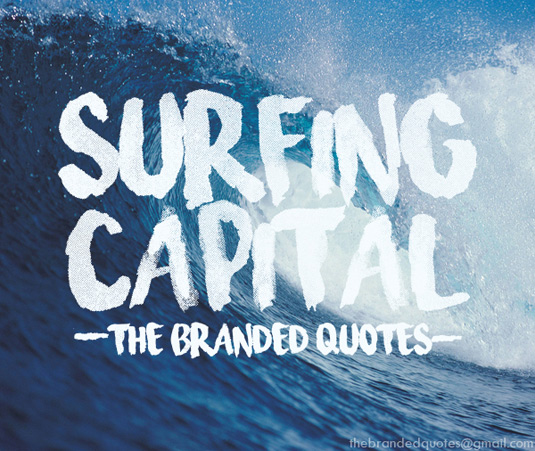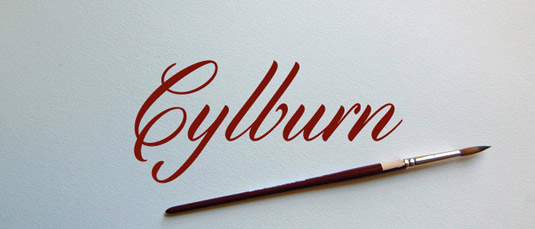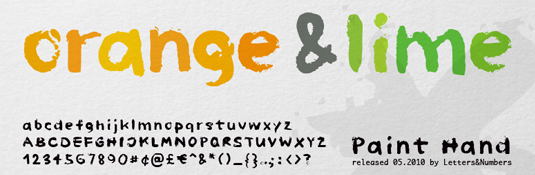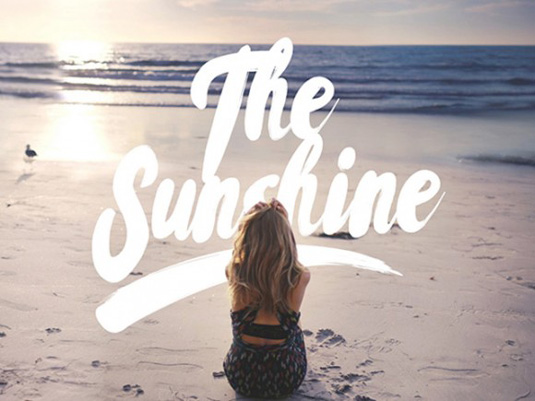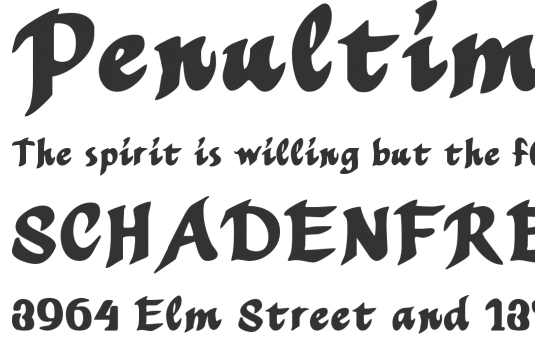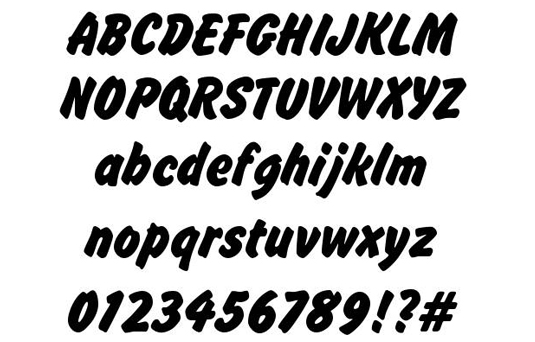
17 top free brush fonts
Fonts come in all manner of designs – retro fonts, handwriting fonts and script fonts, to name a few. In this article, we’re focusing on brush fonts, which can add a humanistic and playful approach to your designs and look great printed.
Here, we’ve scoured the web to find 17 top examples of free brush fonts to put to good use in your projects. Enjoy!
01. Wild Youth
Wild Youth is a modern font with the distinct influence of adventure and the great outdoors
Wild Youth is beautiful hand-drawn brush font from designer Jeremy Vessey. Available on Behance, Wild Youth is described as ‘a modern font with the distinct influence of adventure and the great outdoors’. Perfect for logos, quotes, stationary, apparel and much more, Wild Youth is free for both personal and commercial use.
02. Banaue
Banaue is a handwritten brush font with a homemade look
Hand brushed by Ieva Mezule, Banaue is a handwritten free brush font with a homemade look. The name is taken from the Philippines, Banaue being a place in the north where rice terraces stretch around mountains, hence the lady in the blue raincoat, a local rice planter, featured in the main image. Banaue features 104 characters, with all the basic glyphs.
03. Brusher
Brusher is a bold and modern brush font
Created by Vlad Cristea and Raul Taciu, Brusher is a bold and modern brush font which includes 100 glyphs crafted with precise strokes and smooth lines to give a naturally hand-drawn look.
04. Summer Hearts
Summer Hearts brush fonts is great for a variety of print and digital projects
A hand-painted, all-caps brush typeface from Hustle Supply Co., Summer Hearts is great for a variety of print and digital projects, including posters, branding and logo design.
05. Selima
Created by the team at Jroh Creative, Selima is beautiful and elegant brush font, which is free for both personal and commercial use.
06. Rissa
Rissa is perfectly suited to stationery, logos and much more
With an authentic brush, handcrafted feel, Rissa is perfectly suited to stationery, logos and much more.
07. Kust
Kust was created using a thick brush using pure black ink
Kust was created by fashion designer and painter Ieva Mezule. The letters were drawn on hard paper with a thick brush using pure black ink. Featuring 80 characters, every letter has a unique structure, with a distorted look.
08. Beacon
Beacon is a beautiful hand drawn font
Beacon is a wonderfully fluid serifed typeface created by Cuong Truong Van. Free to download for both personal and commercial use, this font is packed with idiosyncrasies that are sure to add some personality to your work. We particularly like how the open letters and uneven curves give this font a rough wobbly finish.
09. Ampad Brush
This scratchy font comes in different styles
Thanks to its fading brush marks, Ampad Brush creates a distressed look as the letters appear to be scraped across the screen. Made by Gene Gilmore, Ampad Brush is the go-to typeface if you’re looking to inject a sense of horror to your artwork. Ampad comes in four different styles, so you can pick the best one to suit your project.
10. True Lies
Create slick, edgy text with True Lies
Screeching over the page like a car burning rubber, Jonathan Harris’ True Lies font is free to download for personal use. As well as covering the alphabet, thie typeface also includes numbers, symbols and punctuation marks. With a gritty, uneven finish and not a serif to be seen, True Lies is sure to make your text look rough and ready.
11. Goatskin Brush
Add a touch of Asian influence with this flowing font
The broad ink strokes in Måns Grebäck’s Goatskin Brush are ideal for artists looking to add a splash of Asian influence to their work. Carefully simulating the type of marks you would expect to find in East Asian calligraphy, Goatskin Brush is the best of both worlds as it adapts the style to fit the English alphabet.
Including uppercase and lowercase words, plus a selection of punctuation marks, Goatskin Brush is a must-have typeface for your toolkit.
12. Surfing Capital
Surfing Capital has a suitably washed out look
Looking as if it’s been bleached by the sun, Surfing Capital is a pleasant, relaxed font created by the Branded Quotes. Thanks to the different layers of shading, Surfing Capital has a greater sense of texture than your average typeface, making it a sure-fire way to add a spot of personality to your message.
13. Levi Brush
This paint splatter-style font comes in two free varieties
This free brush font was designed by the Romanian designer Levi Szekeres. The paint splatter holds similarities to album covers from David Guetta’s ‘One Love’ to Coldplay’s ‘Viva la Vida’. A variation called Levi ReBrushed is also available for free and includes variations on the paint splatter.
14. Brush Hand New
Free brush fonts: Brush Hand New
Brush Hand New is a refinement of Edwin W Shaar’s Flash Bold
Brush Hand New is a free brush font based on Flash Bold, a typeface created by Edwin W Shaar in 1939. K-Type‘s New version simplifies, lightens and smoothes out ragged edges. Outlines are improved to remove any remaining harshness, resulting in softer, smoother flowing glyphs ideal for titles and display purposes.
15. Paint Hand
Free brush fonts: Paint Hand
Distorted brush font Paint Hand is ideal for child-focused design
Distorted and ragged, Paint Hand is a free brush font designed by Ursula Hitz from Switzerland. The typeface we feature here is playful and ideal for child-focused products or content. Hitz has cultivated diverse talents in typography, graphics and cheese making. Since moving to London a decade ago, her work has focused on location and place, and has been exhibited in a range of galleries.
16. Cylburn
Free brush fonts: Cylburn
Cylburn offers a nod to the art of sign painting
Cylburn is a semi-connected script by Dai Foldes. Cylburn structurally based on Roundhand but written with a pointed brush and restrained tension that separate it from its traditional roots. Dai Foldes lives in Baltimore, applying his background in painting to lettering and type. We love this free brush font for its balance between the imperfect hand and pixel perfect rendering – a nod to the art of sign painting.
17. Mothproof Script
Mothproof Script has a visual weight similar to traditional blackletter forms
Mothproof Script is a expressive and broad calligraphy typeface designed by Diego Quintana. This free brush font has a visual weight similar to traditional blackletter forms, with better legibility. Quitana is a self-made freelance graphic designer and self-taught web programmer. He enjoys projects that try to change and move people over selling them products.